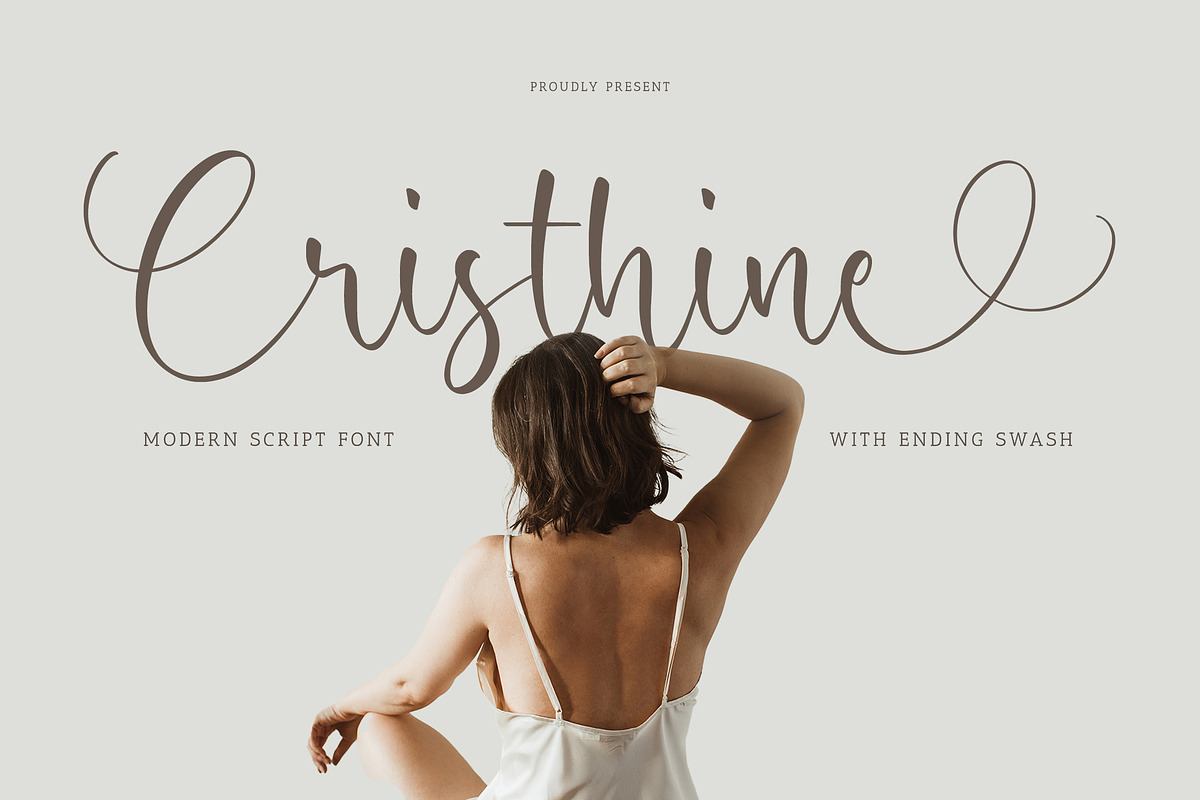
Christine - Modern Script Font Free Download
Christine – Modern Script Font Free Download is a stylish and elegant handwritten typeface that blends contemporary flair with timeless script beauty. Please note, you are required to purchase this font for commercial use. It is available for free download for testing and personal projects only.
With its flowing strokes, smooth curves, and fashionable personality, Christine is perfect for wedding invitations, personal branding, logo design, social media posts, packaging, and quote graphics. It brings a graceful, feminine touch to your typography—ideal for modern creatives and chic designs.